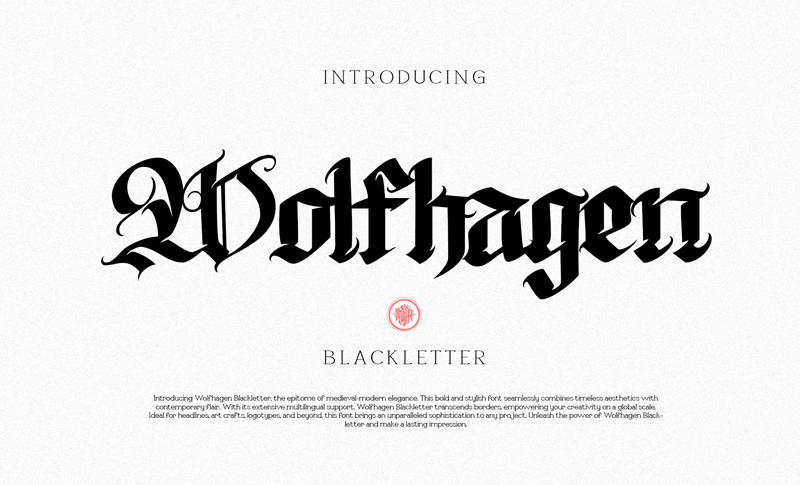
Preview and download Wolfhagen Blackletter Font. Created by Mohamad Farhan Ramadhan in Gothic Medieval styles with Free for personal use license.
Introducing Wolfhagen Blackletter, the epitome of medieval-modern elegance. This bold and stylish font seamlessly combines timeless aesthetics with contemporary flair. With its extensive multilingual support, Wolfhagen Blackletter transcends borders, empowering your creativity on a global scale. Ideal for headlines, art crafts, logotypes, and beyond, this font brings an unparalleled sophistication to any project. Unleash the power of Wolfhagen Blackletter and make a lasting impression. By installing or using this font, you are agree to the Product Usage Agreement: - This font is already FULL VERSION and ONLY for PERSONAL USE. NO COMMERCIAL USE ALLOWED! - Here is the link to purchase COMMERCIAL LICENSE: https://crmrkt.com/X62Wzv - If you need a CUSTOM LICENSE or CORPORATE LICENSE please contact us at: mofr24.artwork@gmail.com - Any donation are very appreciated. Our Paypal account for donation : https://paypal.me/avieora Please visit our store for more amazing fonts : https://www.creativefabrica.com/ref/401336/ https://fontbundles.net/mofr24-work https://creativemarket.com/MohamadFarhanRamadha |